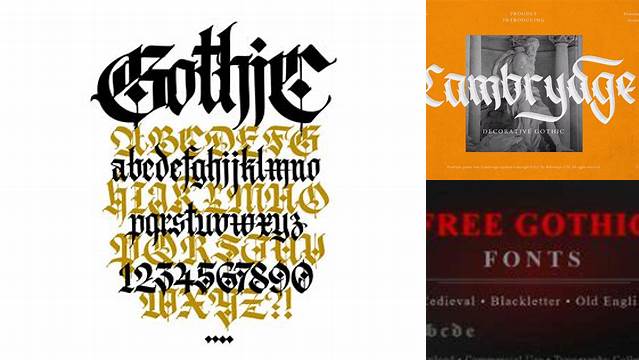
Free Gothic Fonts For Procreate: Bold & Unique!
Hey guys! Are you looking to add some serious edge to your Procreate artwork? Then you've come to the right place! Let's dive into the world of free gothic fonts, perfect for adding that dark, dramatic, and utterly captivating flair to your digital creations. Whether you're designing posters, illustrating fantasy novels, or just want to experiment with different styles, gothic fonts are a fantastic choice. So buckle up, and let's explore the best free gothic fonts you can get your hands on for Procreate!
Unleash Your Inner Darkness: Gothic Fonts 101
Before we jump into specific fonts, let's quickly cover what makes a font "gothic." Generally, gothic fonts, also known as blackletter or Old English fonts, are characterized by their bold strokes, ornate details, and sharp, angular forms. They evoke a sense of history, mystery, and even a touch of the macabre. They're powerful fonts that can instantly transform the mood and feel of your artwork. Gothic fonts are not just about darkness; they are about making a statement. They bring a certain gravitas and elegance to any project, and that's why they remain a timeless choice for designers and artists alike. When choosing the right gothic font, consider the overall tone of your project. A highly ornate font might be perfect for a fantasy illustration, while a cleaner, more modern gothic font could work well for a band poster or a clothing brand logo. The key is to experiment and see what resonates with your artistic vision.
1. Best Free Gothic Fonts for Procreate in 2024
Finding quality free gothic fonts can sometimes feel like searching for a needle in a haystack. But don't worry, I've done the digging for you! In 2024, there are some truly outstanding free options that rival even premium fonts. From classic blackletter styles to modern gothic interpretations, the variety is impressive. We'll explore a curated list of the best free gothic fonts, highlighting their unique features and ideal uses. Each font has been selected for its quality, readability, and overall aesthetic appeal, ensuring that you have access to the very best resources for your Procreate projects. Remember to always check the license agreements to ensure that you can use the fonts for your intended purposes, whether it's for personal or commercial projects. Many fonts offer a free version for personal use and require a license purchase for commercial applications.
3. Classic Blackletter Fonts for a Traditional Gothic Look
When you think of gothic fonts, classic blackletter styles probably come to mind. These fonts are characterized by their intricate letterforms, thick strokes, and distinctive serifs. They're perfect for creating a traditional gothic look, reminiscent of medieval manuscripts and ancient texts. Some popular classic blackletter fonts include Fraktur, Textura, and Rotunda. These fonts exude a sense of history and grandeur, making them ideal for projects that require a touch of old-world charm. Imagine using a blackletter font for a book cover, a historical document, or a vintage-inspired poster. The possibilities are endless! Just remember that blackletter fonts can sometimes be challenging to read at smaller sizes, so it's best to use them for headings and titles rather than body text. Experiment with different sizes and spacing to find the perfect balance between readability and visual impact.
4. Modern Gothic Fonts: A Contemporary Twist
If you love the gothic aesthetic but want something a little more modern, you're in luck! There are plenty of modern gothic fonts that offer a contemporary twist on the classic style. These fonts often feature cleaner lines, simplified letterforms, and a more streamlined appearance. They're perfect for projects that require a touch of edginess without sacrificing readability. Think band logos, clothing brand designs, or even website headers. Modern gothic fonts strike a balance between the traditional gothic vibe and a more contemporary sensibility, making them versatile for a wide range of applications. Some popular modern gothic fonts include those with geometric shapes, sans-serif elements, or unique stylistic alternates. These fonts offer a fresh take on the gothic aesthetic, allowing you to create designs that are both striking and accessible.
5. Gothic Calligraphy Fonts: Elegant and Flowing
For a touch of elegance and sophistication, consider using gothic calligraphy fonts. These fonts combine the bold strokes and ornate details of gothic fonts with the flowing, graceful lines of calligraphy. They're perfect for creating invitations, certificates, or any project that requires a touch of refinement. Gothic calligraphy fonts exude a sense of artistry and craftsmanship, adding a touch of class to your designs. Imagine using a gothic calligraphy font for a wedding invitation, a diploma, or a personalized greeting card. The possibilities are endless! Just remember that calligraphy fonts can sometimes be intricate and challenging to read, so it's best to use them sparingly and in larger sizes. Experiment with different colors and textures to enhance the visual impact of your designs.
6. Gothic Display Fonts: Make a Bold Statement
Need a font that really grabs attention? Gothic display fonts are designed to do just that! These fonts are bold, dramatic, and often highly stylized, making them perfect for headlines, posters, and other large-format designs. Gothic display fonts are all about making a statement. They're designed to be eye-catching and memorable, ensuring that your message gets noticed. Think movie posters, album covers, or event flyers. The possibilities are endless! Just remember that display fonts are not always suitable for body text, as their intricate designs can sometimes hinder readability. Use them sparingly and in larger sizes to maximize their impact. Experiment with different colors, shadows, and textures to create a truly unique and eye-catching design.
7. Pairing Gothic Fonts with Other Styles
One of the best ways to create a visually interesting design is to pair gothic fonts with other font styles. The contrast between the gothic font and the other font can create a dynamic and eye-catching effect. For example, you could pair a bold gothic font with a clean, modern sans-serif font for a striking contrast. Or, you could pair a gothic calligraphy font with a simple serif font for a touch of elegance. Pairing gothic fonts requires careful consideration and experimentation. The key is to find fonts that complement each other without clashing. Consider the overall tone and style of your project when choosing font pairings. A good rule of thumb is to choose fonts that have contrasting characteristics, such as weight, width, or style. This will help create a visual hierarchy and make your design more engaging.